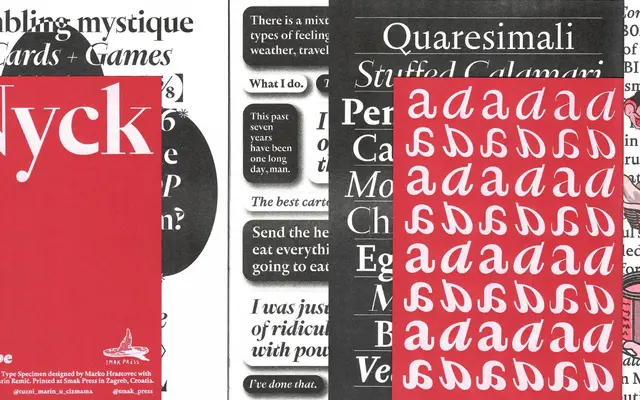
A 24-style serif family from Hot Type spanning two optical sizes and four weights, designed for continuous reading and display work across different scales.
Nyck offers S and M optical size grades, each with Regular, Text, Medium and Bold weights alongside matching italics, giving 24 styles in total. The optical size splits suggest careful attention to rendering at body text sizes versus larger display settings. Priced at €70 per style or €1,680 for the complete family, it sits squarely in professional text typography territory.
The specimen shows a serif family with optical size variants (S and M sizes, Text and Display cuts) and upright/italic pairs, consistent with a transitional or contemporary text serif designed for multi-size deployment.